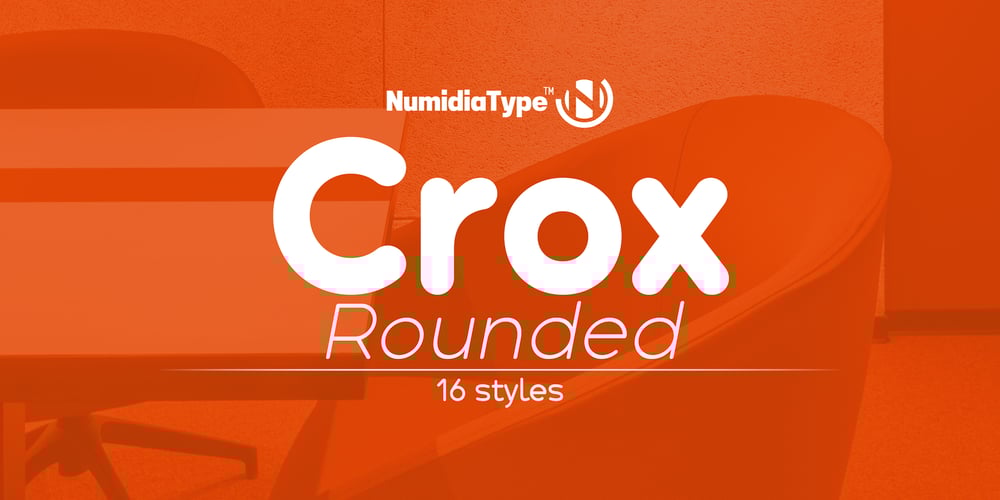
Crox Rounded Font Family was designed by Yassine Abdi and published by NumidiaType. Crox Rounded contains 16 styles and family package options. Crox™ Rounded is a sans-serif professional typeface created using Crox™ family curves that comes in 14 harmonic weights plus 2 poster styles with upright and italic variants, as well as a maximum x-height for great optical reading.All styles have over 25 professional OpenType features and a wide range of Western languages coverage. with a variety of styles and substitute characters: sets 1, 2, 4, 10, 11.Furthermore, operational styles 6 and 7 for the fit-derived SI units format and pricing styles: sets 5, 8, and 9 for business and marketing, ADS and web design, branding, or products design, as well as other OpenType features such as ligatures, old-style numerals, ordinals, swashes,…SpecimenCrox™ is a trade mark of Yassine Abdi.